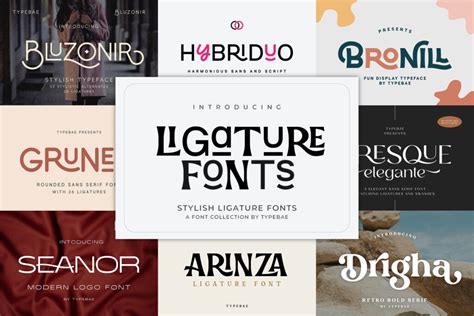
How Ligature Fonts Can Transform Your Design Projects
What is a Ligature Font?
A ligature font is a typeface that combines multiple characters into a single glyph. It is most commonly used in calligraphy, however, it is becoming increasingly popular in modern graphic design. This type of font gives designers the ability to create unique and stylish designs while also providing a more legible and aesthetically pleasing finished product. When used in a design, ligature fonts can add a unique and eye-catching element that would otherwise be difficult to achieve.
Benefits of Using a Ligature Font
Using a ligature font in your design projects offers a wide range of benefits. Firstly, it provides a more aesthetically pleasing appearance. The joined characters make it easier for viewers to read the text and also adds a unique and stylish touch. Secondly, ligature fonts allow designers to create custom letterforms and words, which can be used in logos and other branding materials. Finally, ligature fonts are generally very efficient with their file size, meaning that they won’t slow down performance on websites and apps.
Examples of Ligature Fonts
When it comes to finding a ligature font, there are plenty of options available. Some popular examples include Adobe Caslon Pro, JAF Ligature Pro, and Microsoft’s Calibri. There are also plenty of other fonts available in both free and paid versions.
How to Use a Ligature Font
When using a ligature font in a design project, it is important to keep in mind the context of the project. For example, a ligature font may be perfect for a logo or branding materials, but may not be the best choice for a website or app. Additionally, it is important to consider the font size. Ligature fonts are typically smaller than traditional fonts, so they may not be the best choice for larger text. When using a ligature font, it is also important to consider the spacing between characters. Ligature fonts typically require more spacing than traditional fonts, so it is important to make sure that the spacing is consistent throughout. Additionally, some ligature fonts may require manual kerning, which can be a time-consuming process.
Example of How Ligature Fonts Can Transform Your Design Projects
For example, if you are creating a logo for a restaurant, you may want to use a ligature font to give the logo a unique and stylish look. The joined characters can give the logo a more elegant and sophisticated appearance, which can help the restaurant stand out in the crowd. Additionally, the ligature font can add a sense of personality to the logo, which can help customers connect with the brand.
The Pros and Cons of Using a Ligature Font
As with any type of font, there are both pros and cons to using a ligature font. On the plus side, ligature fonts offer a unique and aesthetically pleasing look that is hard to achieve with traditional fonts. Additionally, they can help create custom letterforms and words, which can be beneficial for branding materials. On the downside, ligature fonts can be time-consuming to work with. They require more spacing than traditional fonts, and manual kerning may be necessary. Additionally, they may not be the best choice for larger text. Overall, ligature fonts can be a great choice for certain design projects, but it is important to consider all of the pros and cons before committing to a font.
Points of View about How Ligature Fonts Can Transform Your Design Projects
Ligature fonts are an excellent way to add a unique and eye-catching element to any design project. They can help create a more aesthetically pleasing and legible finished product, and can also be used to create custom letterforms and words. However, it is important to keep in mind the context of the project, as well as the time-consuming nature of working with ligature fonts.
Ligature fonts can be a great choice for certain design projects, as they offer a unique and stylish look. However, it is important to consider the context of the project and the time-consuming nature of using ligature fonts. Ultimately, if used correctly, ligature fonts can help create a more aesthetically pleasing and legible finished product.